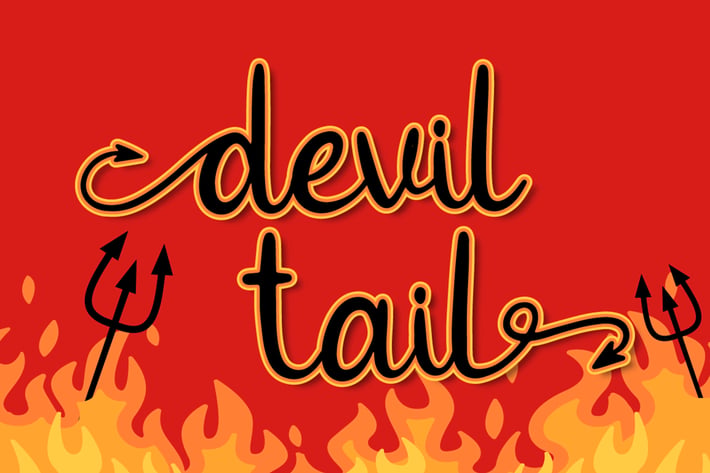
Devil Tail - Halloween Font
Devil Tail is a delicate and incredibly distinct handwritten font. Fall in love with its incredibly versatile style and use it to create spectacular designs!
Beginning & Ending Swash